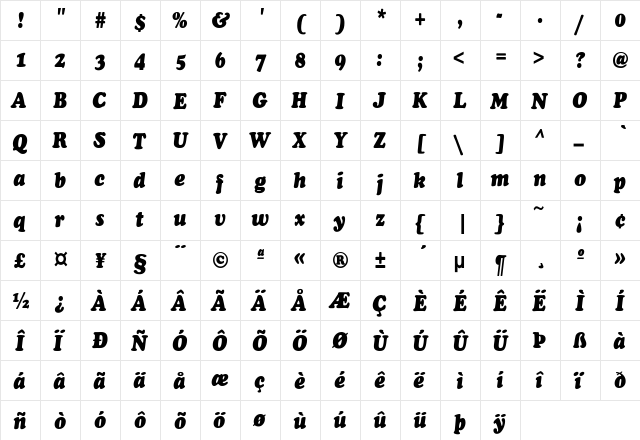
CooperCnd-Heavy-Italic Regular Font Preview
CooperCnd-Heavy-Italic Regular
Design Context for CooperCnd-Heavy-Italic Typeface
CooperCnd-Heavy-Italic takes a measured approach to typography — its balanced proportions and neutral character make it a reliable workhorse for both digital and print work. The slanted form adds forward momentum and visual energy.
Pro Tip: Try CooperCnd-Heavy-Italic for annotation and caption copy alongside an upright companion — the contrast in angle creates a dynamic but ordered typographic system.